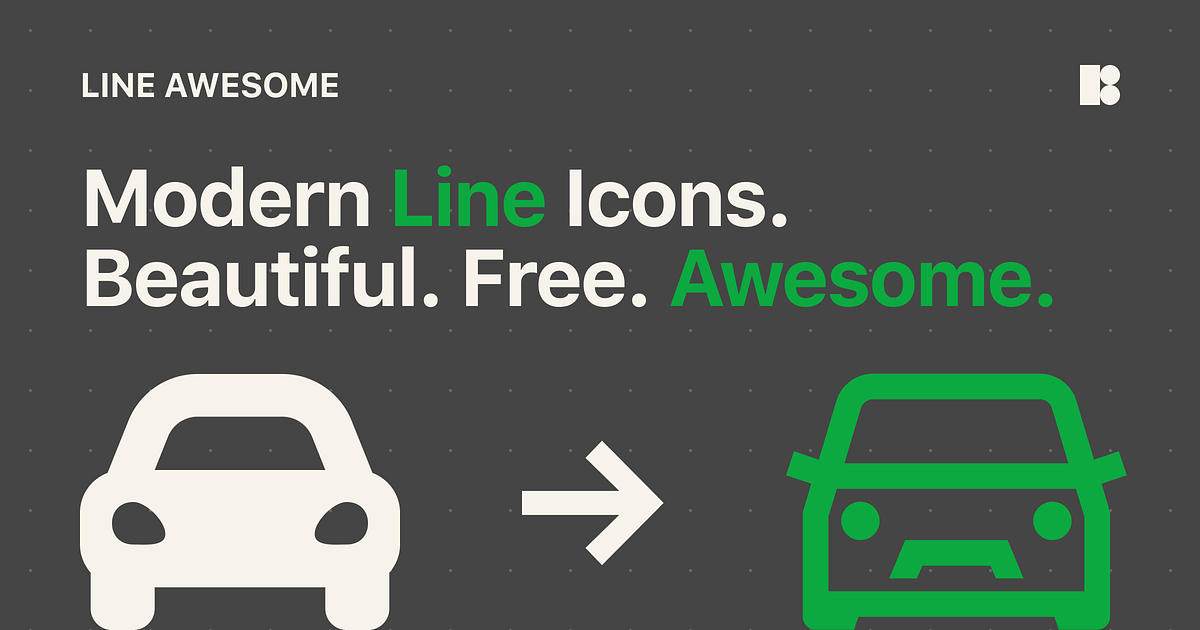
Line Awesome: Get Free Icon Font with 1380+ Elegant Line Icons
Line Awesome: Get Free Icon Font with 1380+ Elegant Line Icons Via Prototyping: From UX to Front End — Medium by Icons8